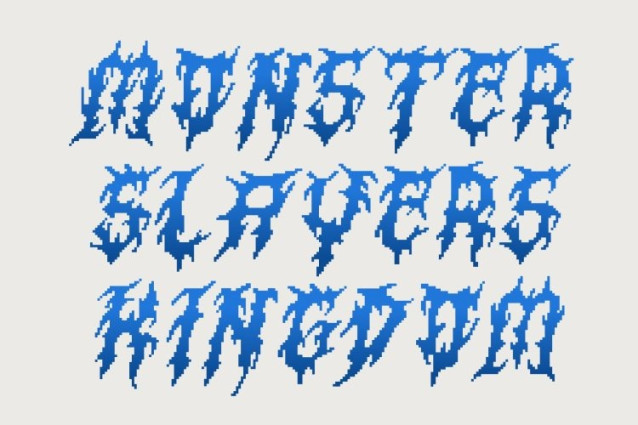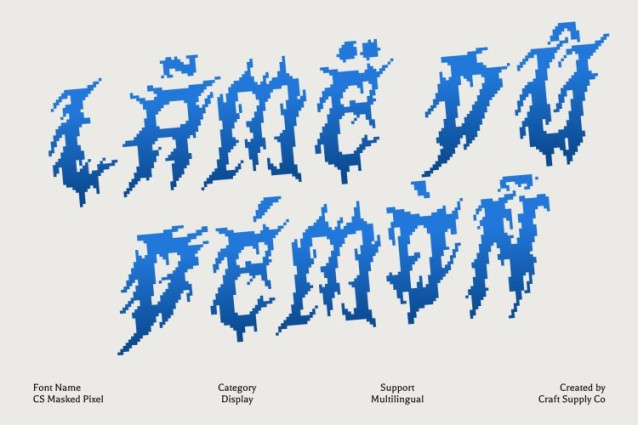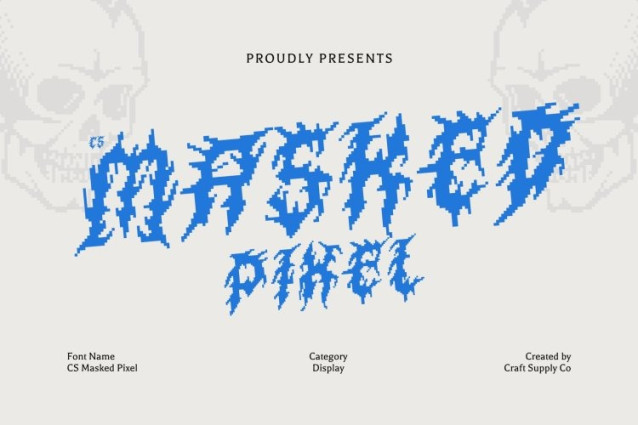
CS Masked Pixel Font
CS Masked Pixel Font This is a raw and aggressive black metal display font designed to embody darkness, intensity, and extreme expression. Its sharp spikes and chaotic construction create a brutal, uncompromising look that instantly commands attention. Enhanced with a pixel style, the font gains a striking digital edge that amplifies its menacing character.
Chaotic Letterforms with Fierce Energy
Each character is built with jagged edges, irregular strokes, and turbulent shapes that feel wild and unrestrained. This chaotic visual language reflects the raw spirit of black metal culture, turning every word into a statement of power, rebellion, and intensity. The pixel structure adds a retro-digital tension, making the chaos feel even more deliberate and eye-catching.
Bold Expression for Extreme Visual Impact
Designed to be loud and fearless, this font delivers maximum impact in any composition. Its aggressive forms are perfect for band logos, album covers, posters, and dark-themed visuals where intensity and attitude are essential. The pixel style reinforces a harsh, digital atmosphere reminiscent of old technology and underground aesthetics.
Perfect for Dark, Edgy, and Underground Projects
This font excels in music branding, alternative artwork, experimental posters, and extreme visual projects. Its combination of black metal brutality and pixel aesthetics makes it ideal for digital designs, retro-tech themes, and old-school electronic visuals. With this font, your designs feel dark, chaotic, and unforgettable.